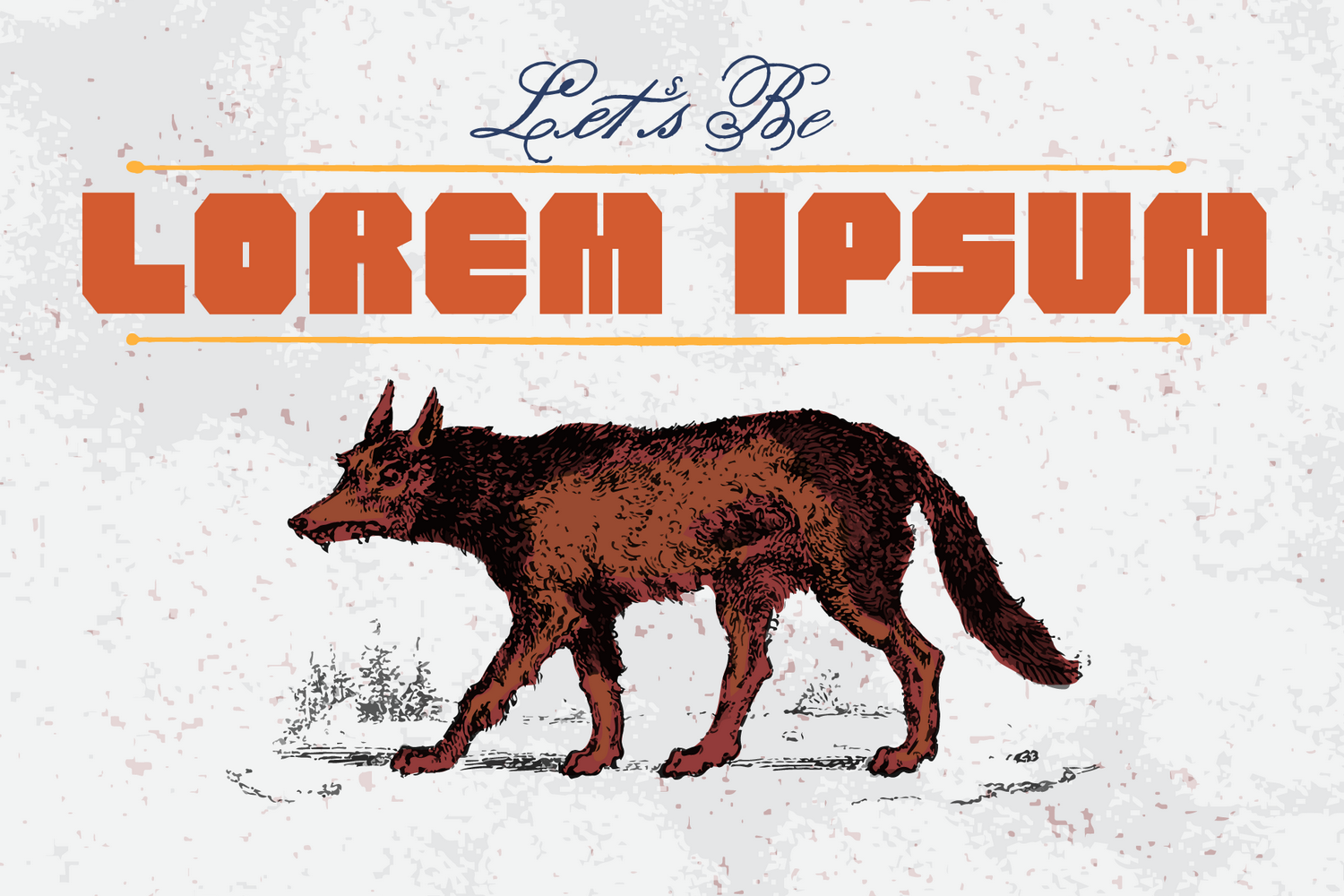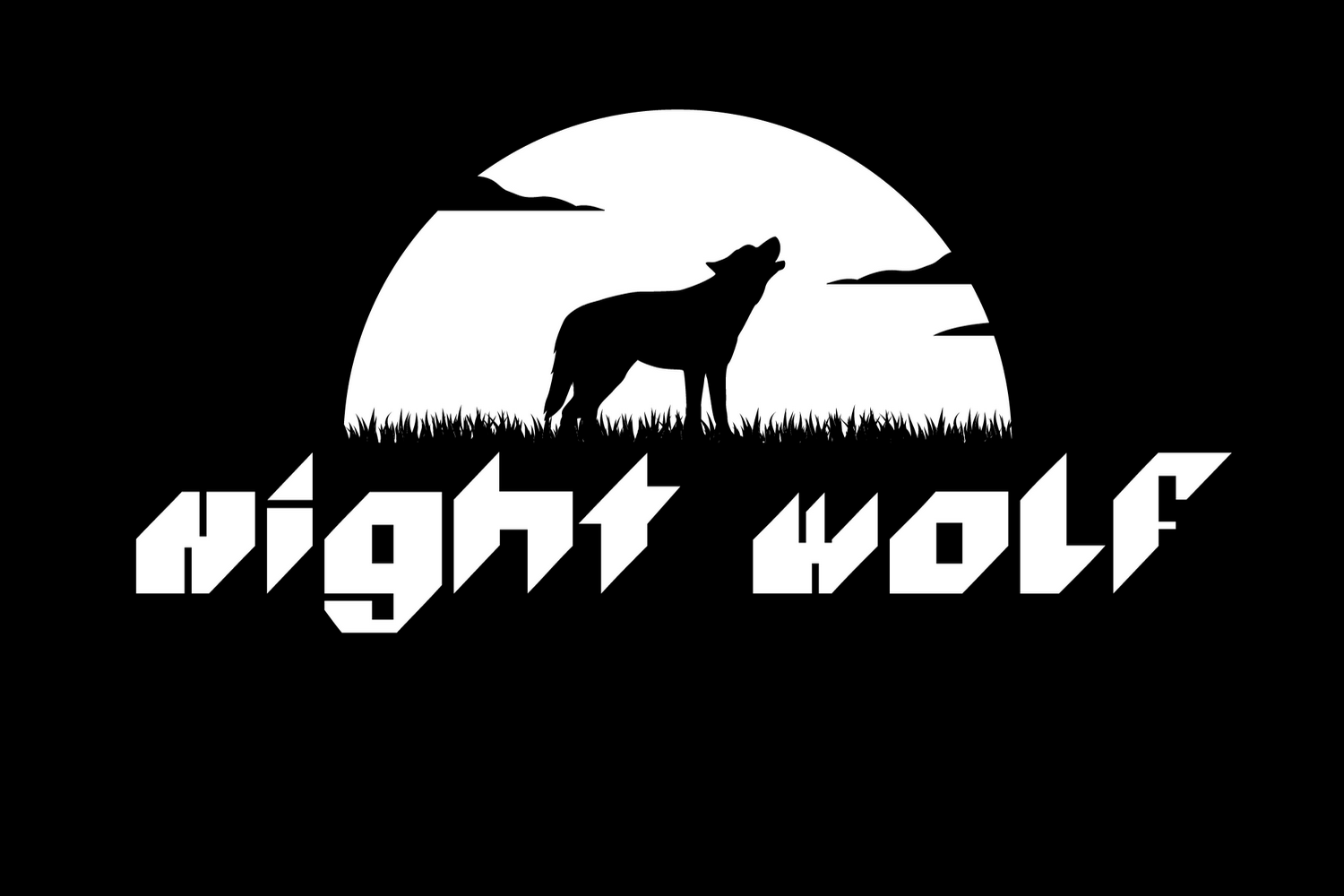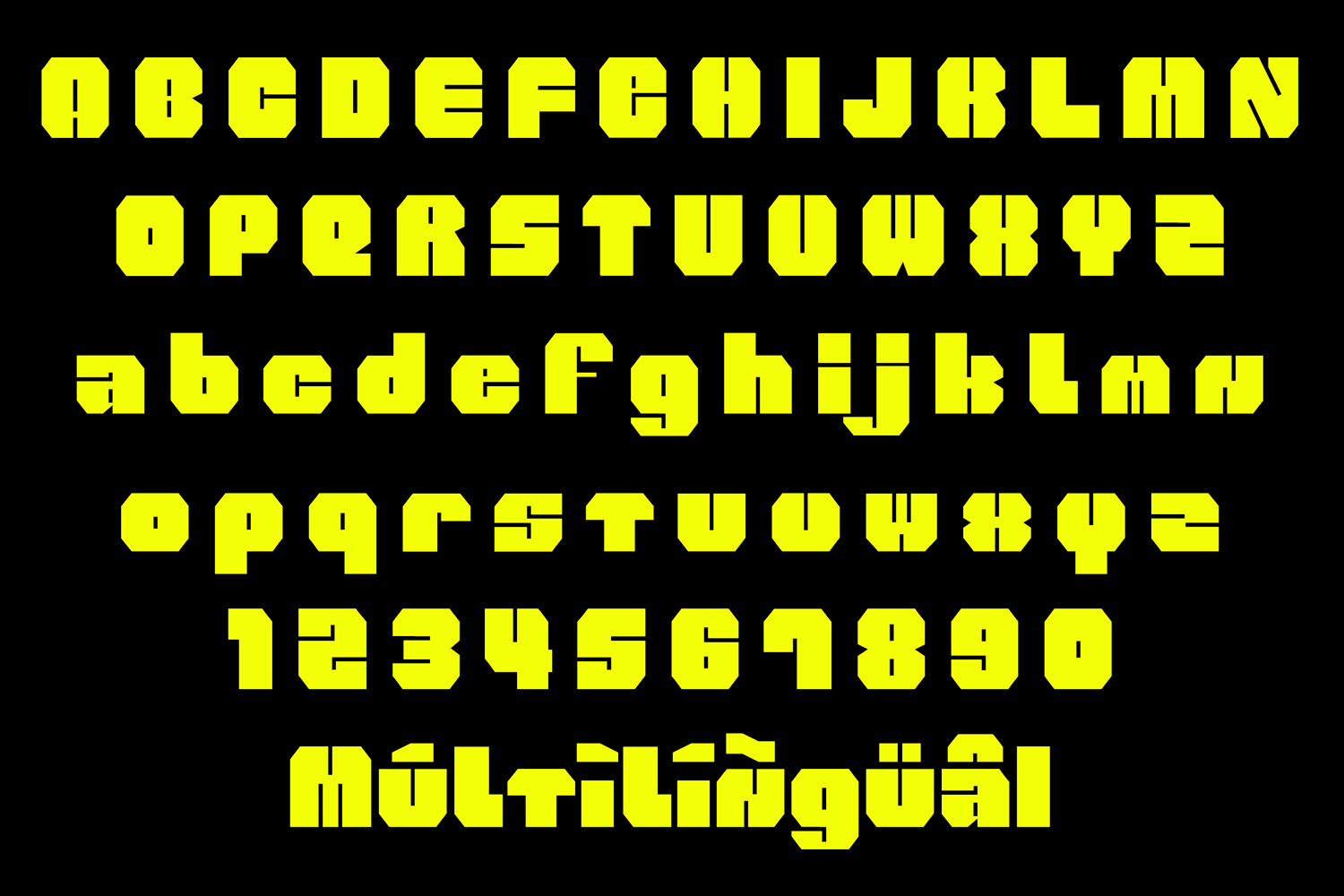
WOLF Font is a geometric forms sans serif with plain curves and a clean, functional structure. So it’s most suitable for headlines of all sizes, but it does work well in a variety of text lengths. WOLF Font is a beautiful font, with a bold weight perfect for adding some style and brutality to your designs. Suitable for logo, logotype, branding, fashion, label, book cover, t-shirt, instagram post, video and other.
- Uppercase
- Lowercase
- Standard Ligatures
- Numbers & Punctuation